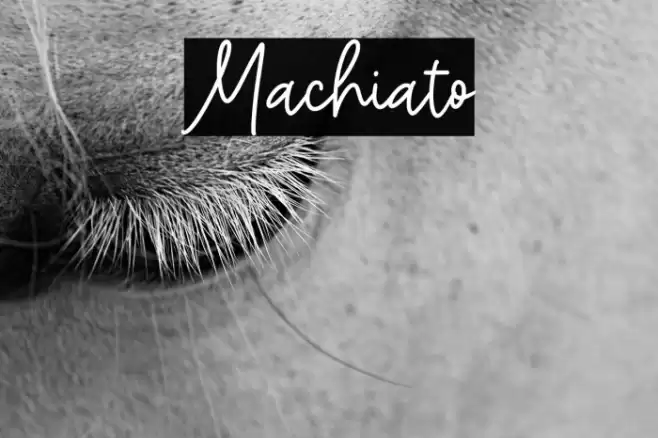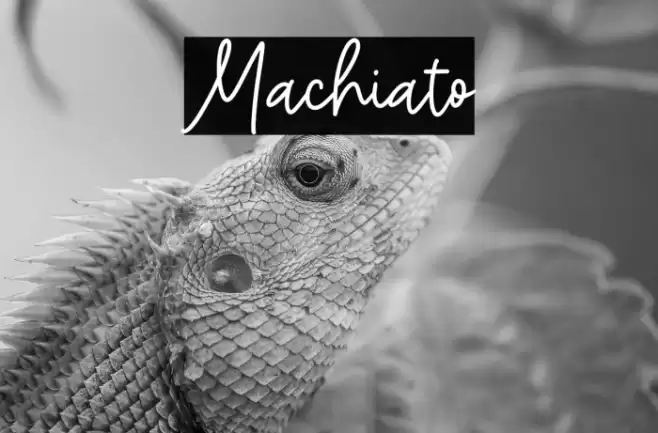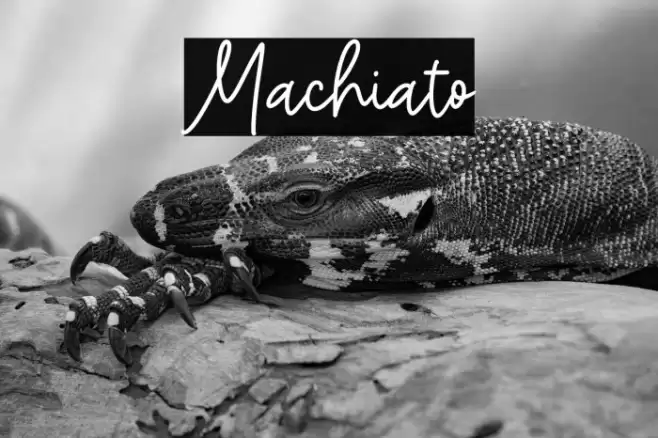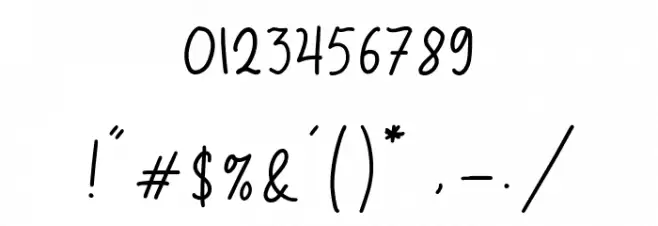
Machiato Font
Machiato Description
This font exhibits a lively and flowing handwritten style, characterized by its elegant cursive script. The letters are interconnected with smooth, sweeping strokes, giving it a natural and personal touch. The uppercase letters are slightly more elaborate, with some featuring loops and flourishes that add a decorative flair. The lowercase letters maintain a consistent flow, enhancing readability while retaining the font's artistic appeal. The numerals and special characters are crafted to match the overall aesthetic, ensuring a cohesive look across all text. This font's charm lies in its ability to convey a sense of warmth and creativity, making it suitable for a variety of expressive projects.
A lively, flowing handwritten script with elegant cursive strokes from Uncategorized fonts.
- Proposed Projects: Ideal for wedding invitations, personal branding, greeting cards, and creative projects that require a personal touch.
- Use Case: Logos, Invitations, Greeting Cards